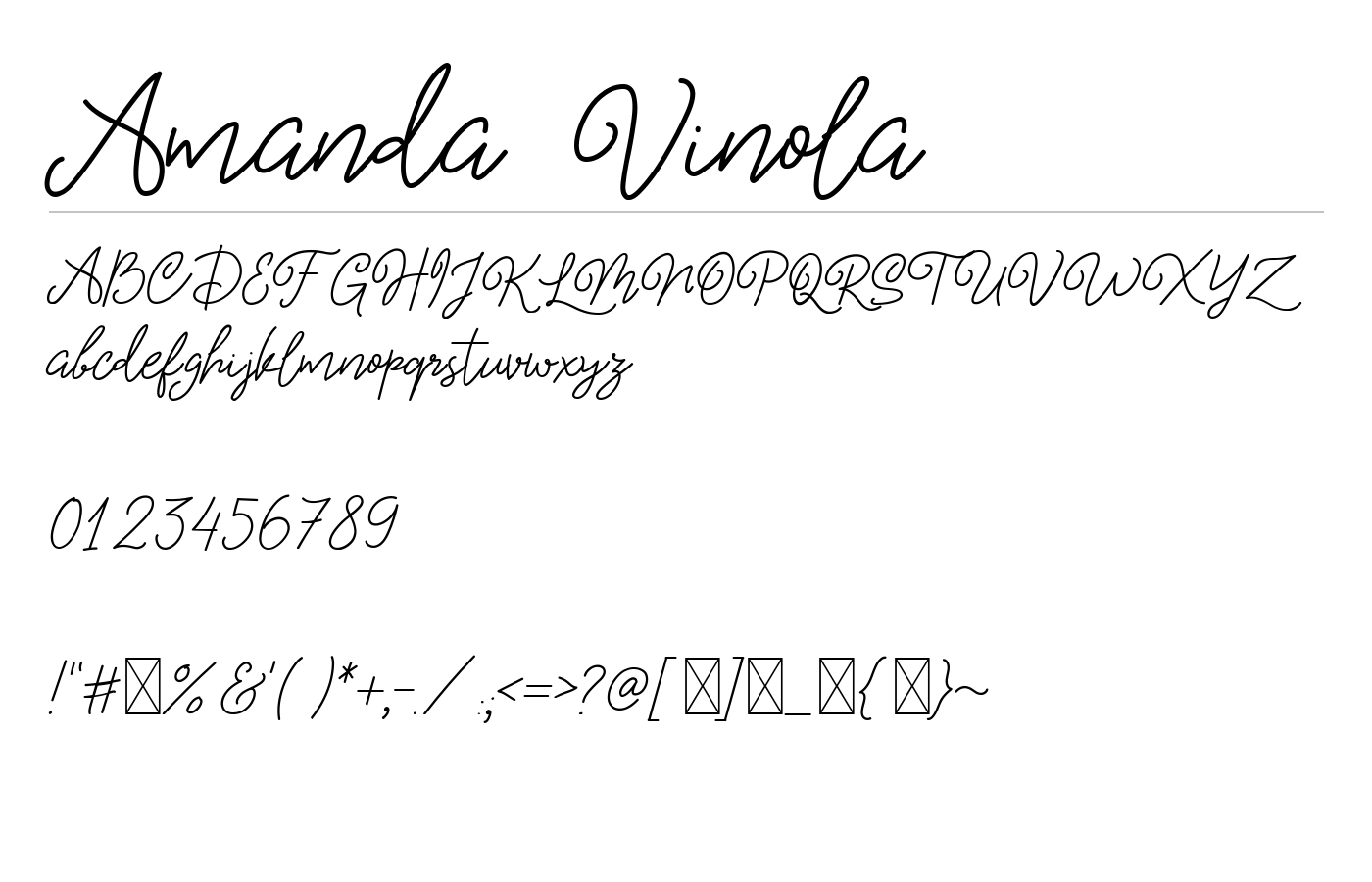
Amanda Vinola is a delicate, elegant script font characterized by its smooth, flowing strokes and graceful letterforms that mimic natural handwriting. Its light weight and refined curves give it a stylish and modern feel, making it perfect for invitations, branding, and any design looking for a personal, sophisticated touch. This font works well in creative projects that benefit from a gentle, humanistic aesthetic.
Amanda Vinola Font